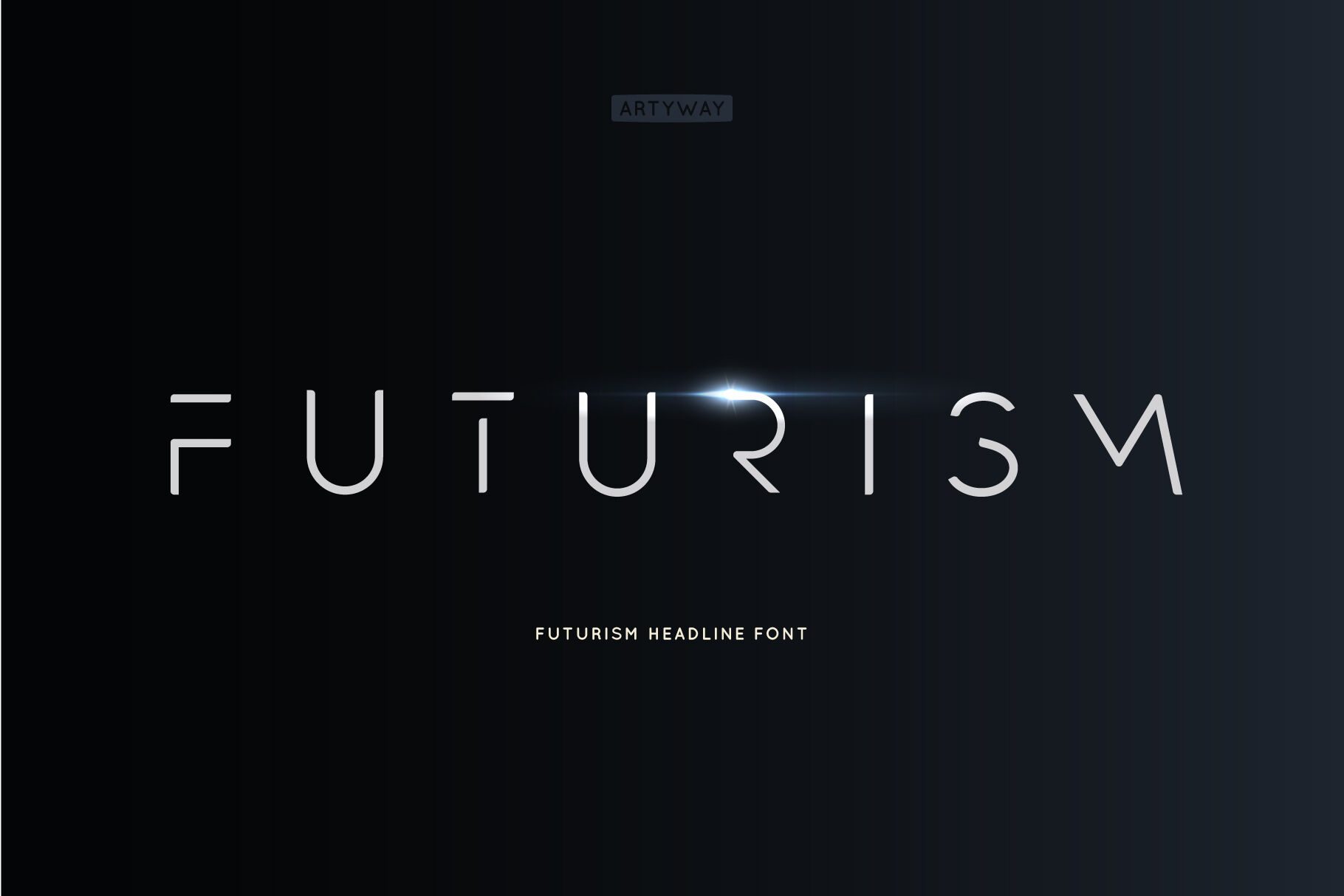
In the ever-evolving world of design, **free futuristic fonts** have emerged as a stylish element that encapsulates innovation and modernity. These typefaces are not just visually appealing; they evoke a sense of progress, making them essential for projects that seek to communicate cutting-edge ideas. With the best futuristic fonts at your fingertips, designers can transform ordinary typography into striking visuals that captivate audiences. From minimalist geometric shapes to intricate futuristic font styles, these modern typography fonts can significantly enhance branding and advertising efforts. Download futuristic fonts today and explore a variety of futuristic font types that can elevate your creative projects to new heights.
As digital aesthetics take center stage in contemporary design, enthusiasts are increasingly drawn to avant-garde typefaces that reflect forward-thinking principles. Known for their sleek lines and bold designs, these modern fonts bring a unique flair that resonates well with technology-driven themes. With an array of advanced options, from clean sans-serifs to creatively styled display fonts, embarking on a journey through the world of futuristic typography offers endless possibilities. Whether for logos, advertisements, or digital media, these distinct styles contribute to a dynamic visual language that speaks to modern sensibilities. Dive into the latest trends and find the perfect type selections to give your work that innovative edge it deserves.
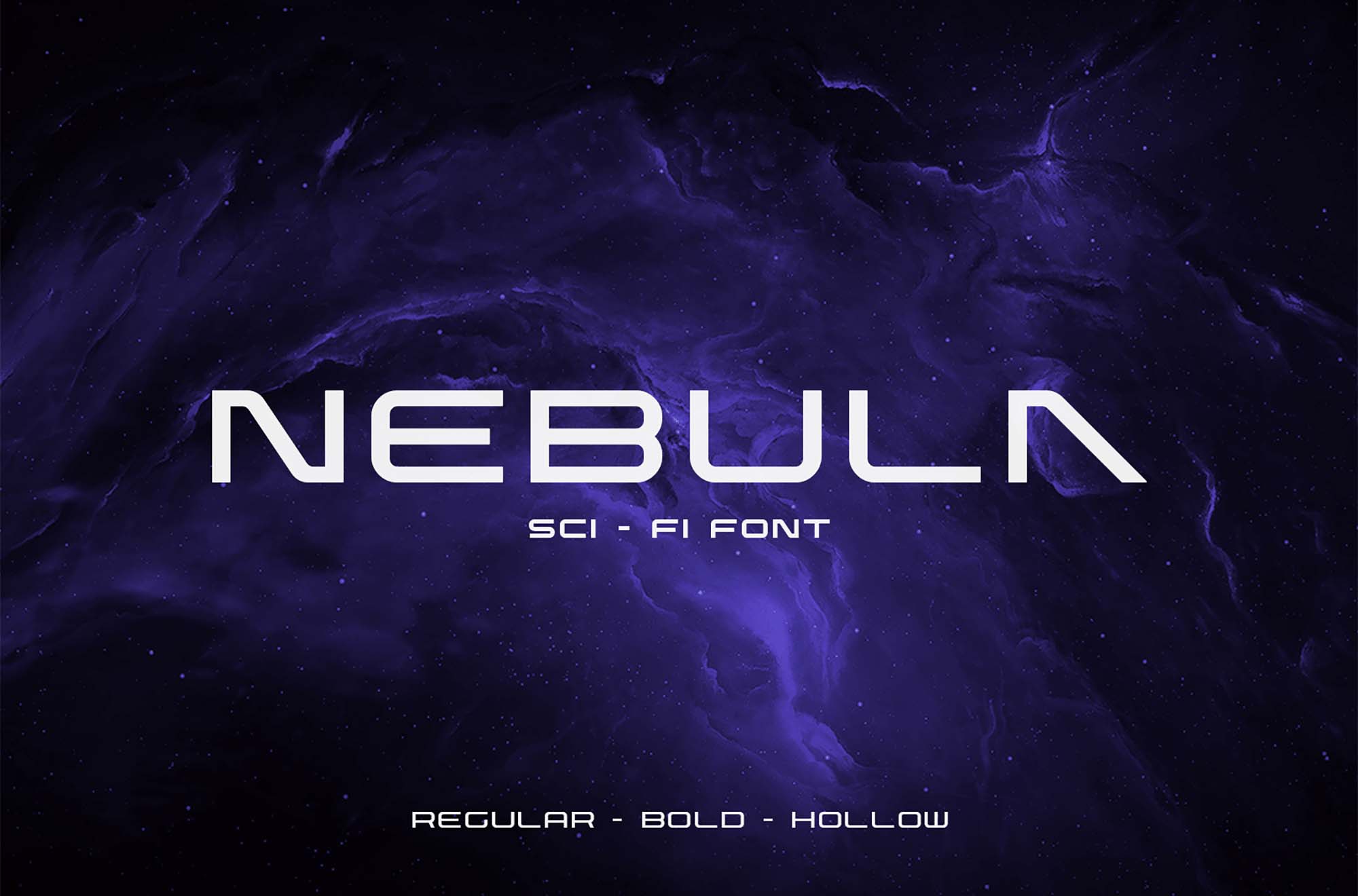
Introduction to Futuristic Fonts
Futuristic fonts stand out for their captivating geometric shapes and sleek lines. These fonts appeal to designers and creatives looking to infuse a sense of modernity into their work. Their unique characteristics uplift basic typography, transforming it into something that resonates with contemporary aesthetics. When employed in various settings, from tech branding to creative projects, they convey an image of innovation and sophistication.
The utilization of futuristic fonts can greatly influence the perception of a message. Brands that adopt these styles often appear more aligned with cutting-edge technology and progressive thinking. Moreover, such fonts are versatile, fitting seamlessly into digital media, logos, or promotional materials intended to capture attention and convey forward-thinking ideas.
Top Picks for Futuristic Fonts
In our curated collection of over twenty futuristic fonts, each choice reflects a distinct design philosophy while maintaining the core principles of modern typography. One standout is the Maswen Futuristic Sans-Serif Font, which combines buoyant design and functionality, making it a perfect choice for any modern project. Similarly, Halfomania showcases sharp edges and a minimalist aesthetic, fitting seamlessly into innovative designs.
For those looking for a touch of elegance, Planeto offers bold geometrical shapes that communicate a technological vibe effortlessly. Meanwhile, the Strato Outline Font presents a clean, geometric design that harmonizes rounded corners with sharp lines, appealing to various modern projects.
Exploring the Diversity of Styles
Futuristic fonts come in a broad spectrum of styles, catering to different needs and tastes. From the space-inspired Necosmic to the edgy Angular Dystopian Font, there’s a suitable option for every designer’s needs. Fonts like Coder exemplify a digital precision, while the Great Futuristic typeface stands as a testament to the power of bold, uppercase characters in embodying advanced technology.
Further diversity can be found in the sleek design of Orbitron and the retro charm of Monoton. Whether you’re working on a tech startup’s branding or a gaming application, the right futuristic font can significantly enhance the project’s visual communication.
Important Considerations
Choosing the right futuristic font involves understanding both the message and aesthetic you’re aiming for. It’s essential to consider not just the appearance of the font but also to ensure that it aligns with the project’s theme. Readability is crucial; while some futuristic fonts impress with their unique looks, their readability can be compromised at smaller sizes.
To achieve an effective design, consider pairing futuristic fonts with simpler fonts that can balance their uniqueness. This pairing will direct focus towards your main message while still allowing the desired modern flair to shine through.
FAQs About Futuristic Fonts
Addressing common queries, many wonder what truly defines futuristic fonts. These typefaces are typically characterized by their inventive designs that draw heavily from science fiction and technology. Incorporating geometric patterns, these fonts create strong visual impressions ideal for tech-related projects or any theme emphasizing innovation.
Another frequent question pertains to the best practices for using these fonts. Recognizing context is vital—while they excel in modern, tech-savvy environments, their boldness may not resonate with traditional designs. Therefore, choose wisely based on the project’s requirements.
More Resources for Design
As you explore futuristic fonts, consider the broader world of typography available to you. From sleek sans-serifs to dramatic display fonts, options abound for elevating your designs. It’s worth investing time exploring various styles, as finding the perfect font can make a significant difference in your project’s appeal.
– **Customization and Personalization**: Users will likely demand fonts that can be tailored to their specific needs, reflecting their unique branding and identities.
– **Emphasis on Readability**: As designers push the boundaries of creativity, maintaining clarity and readability will be essential, particularly in an era where attention spans are fleeting.
In essence, futuristic fonts will play a pivotal role in shaping the designs of tomorrow, encouraging a blend of innovation and aesthetic integrity.